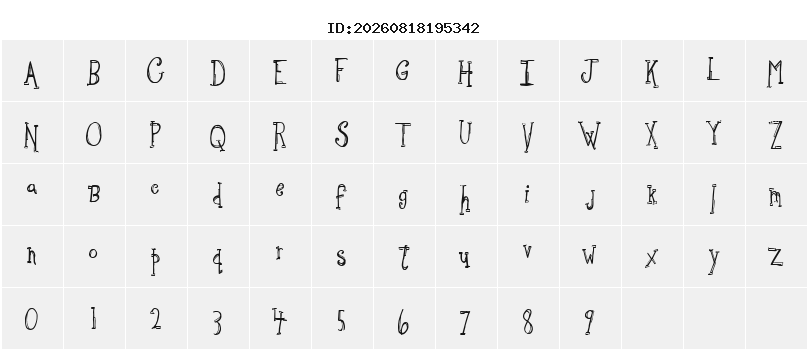
• Font Name: Sketchbook
• Designer: UnAuthorized Type
• Description: I like to sketch sometimes. I'm not very good at it, though. Most everything turns into either letters or landscapes. But I was looking at some cartoons on the web, and the man had written sketchbook something like this. So I tried to simulate his style. I was pretty close, but no matter, it looks good.
About Sketchbook.ttf